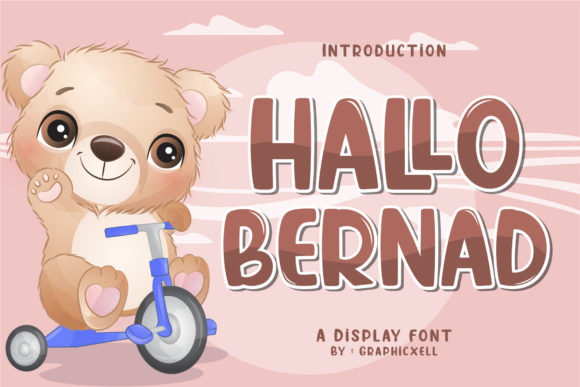
Introducing Hallo Bernad Font, the ultimate choice for all your design needs! Created by Graphicxell, this stylish display font is here to elevate your creative projects to a whole new level. Forget about ordinary fonts, as Hallo Bernad is packed with captivating features that will make your designs stand out from the crowd.
With its incredibly versatile style, Hallo Bernad is the perfect choice for all your design endeavors. Whether you're looking to create stunning stationary art, eye-catching social media posts, or any other project that requires a touch of elegance, this font has got you covered. Its unique and captivating design will instantly grab attention and leave a lasting impression on your audience.
But what sets Hallo Bernad apart from the rest? It's not just a font; it's an experience. The moment you lay eyes on it, you'll fall in love with its exquisite details and impeccable craftsmanship. Each character is carefully crafted to create a harmonious and visually pleasing composition. The result? A font that exudes professionalism, creativity, and style.
But that's not all. Hallo Bernad is also a dream come true for all the keyword enthusiasts out there. With its rich keyword integration, this font is a goldmine for SEO purposes. Say goodbye to dull and repetitive content, and embrace the power of captivating keywords that will attract users looking to buy. From vinyl lettering to digital designs, Hallo Bernad is the ultimate choice for those who want to make a statement.